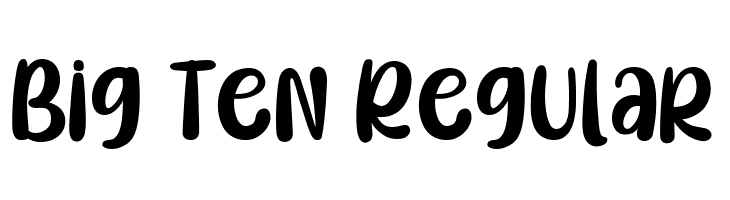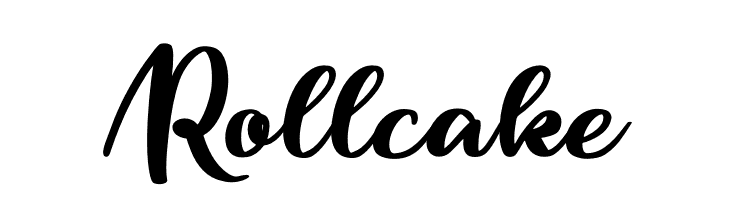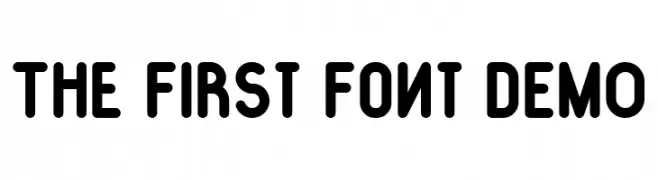
A bold, rounded font with a modern and playful style.
A bold, modern font with geometric precision and strong visual impact.
A bold, decorative font with swirling embellishments and artistic flair.
A decorative and ornate font with intricate curls and swirls.
A decorative font with playful swirls and bold strokes.
An elegant, flowing script font with a dynamic slant and refined style.
A bold, flowing script font with elegant, connected letterforms.
A decorative font with intricate curls and swirls, perfect for artistic projects.
A modern, connected font with bold, rounded characters and a playful style.
A bold, modern font with rounded strokes and a playful aesthetic.